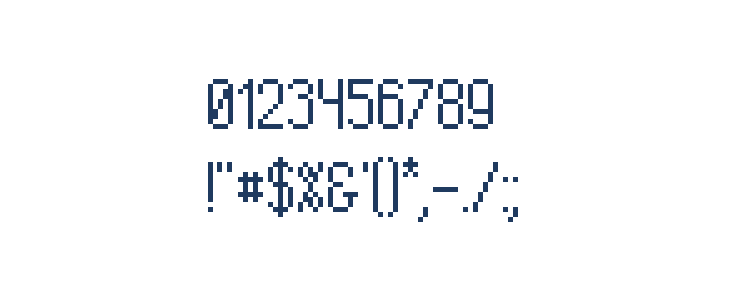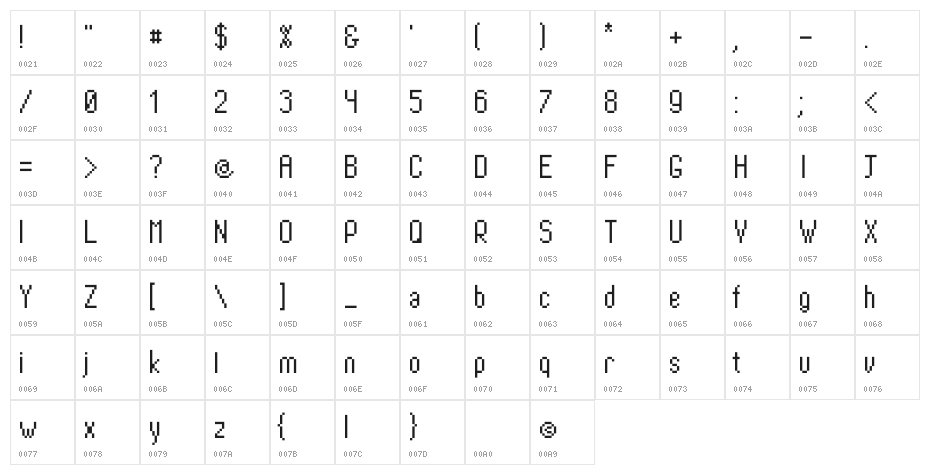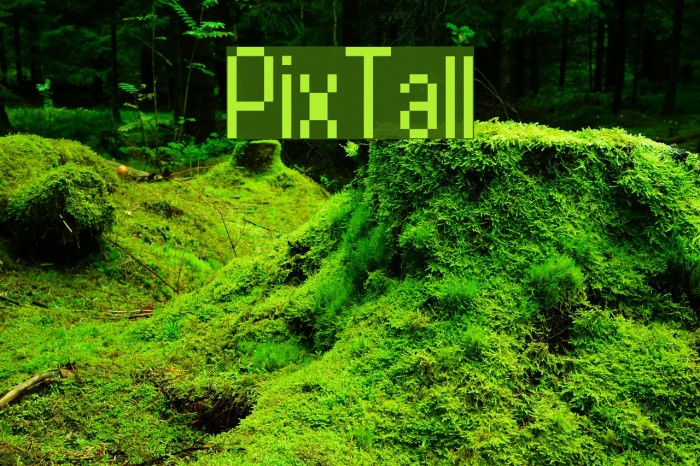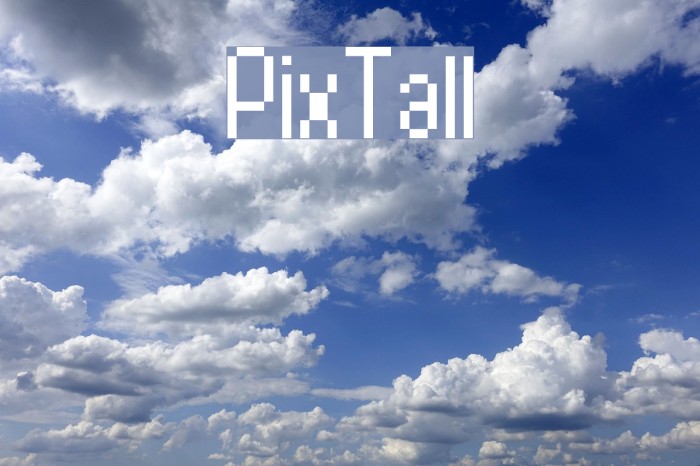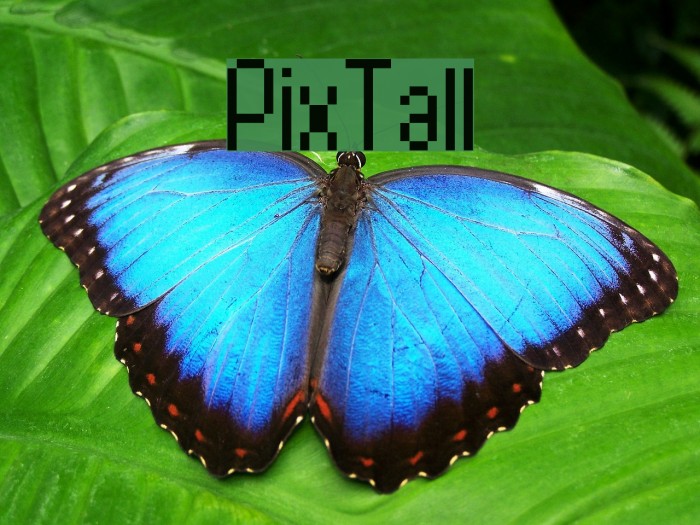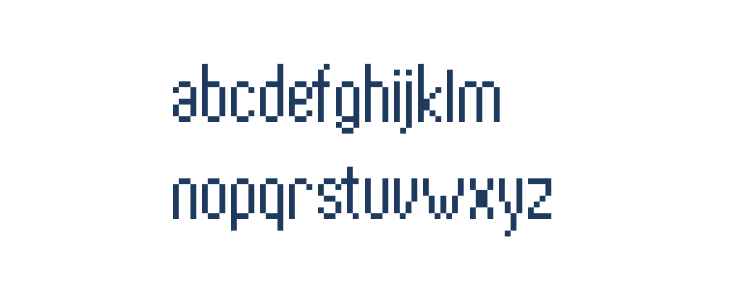
PixTall Font
PixTall Description
This font features a pixelated, blocky design reminiscent of early digital displays and retro video games. Each character is constructed with a grid-like precision, giving it a distinctly digital and geometric appearance. The uppercase and lowercase letters maintain a consistent height, contributing to a uniform look. The numerals and special characters follow the same pixelated style, ensuring visual coherence across all elements. This font's nostalgic aesthetic is ideal for projects seeking a vintage or tech-inspired theme.